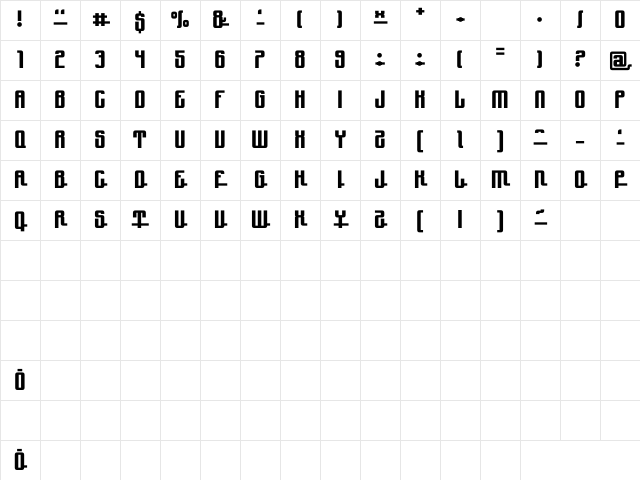
YnduPro Regular
Design Context for YnduPro
YnduPro is a composed and adaptable typeface that performs quietly and consistently across a wide range of design contexts.